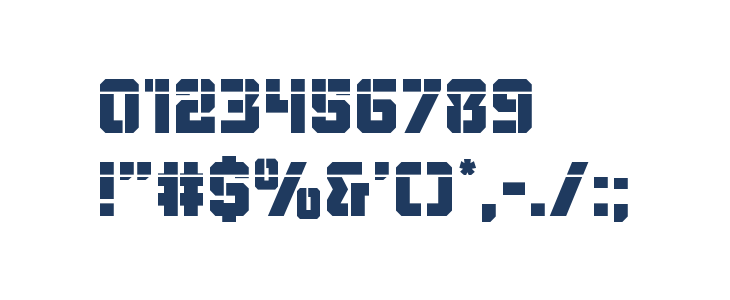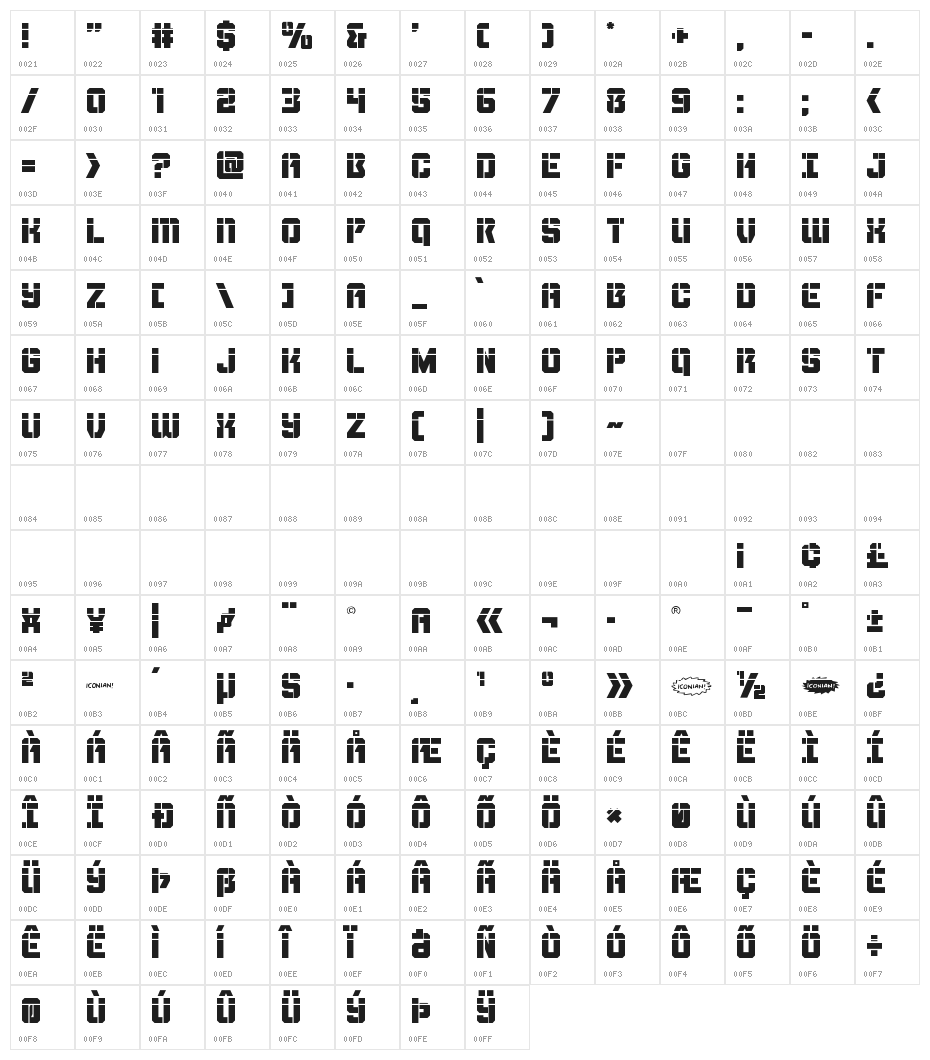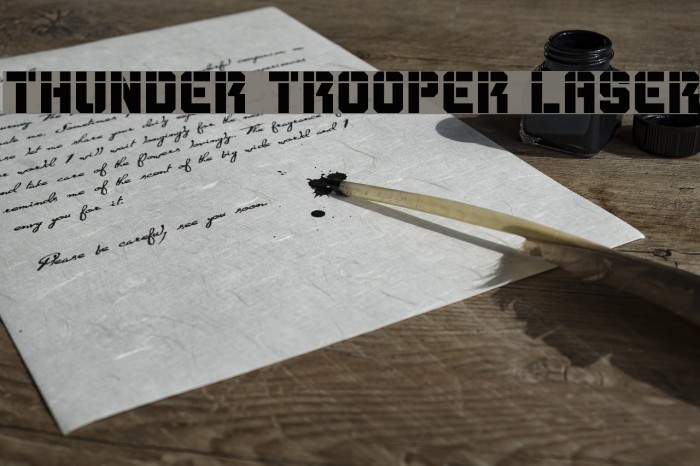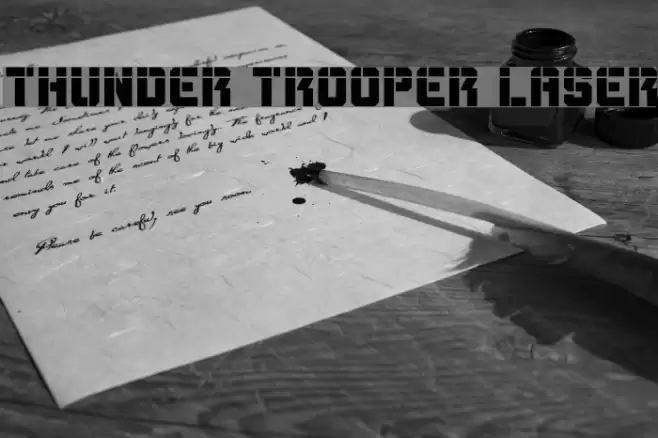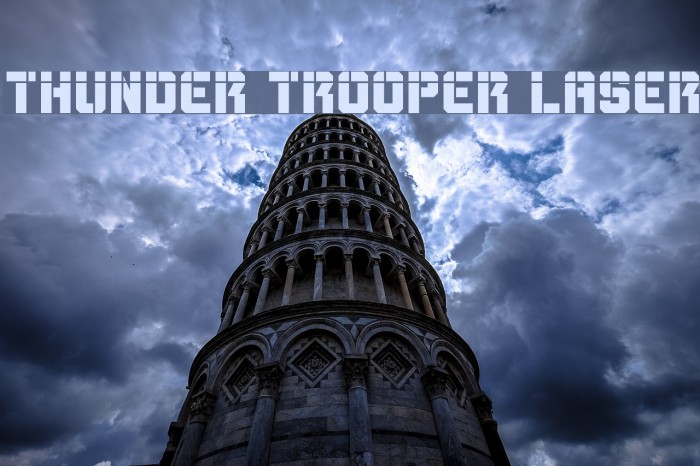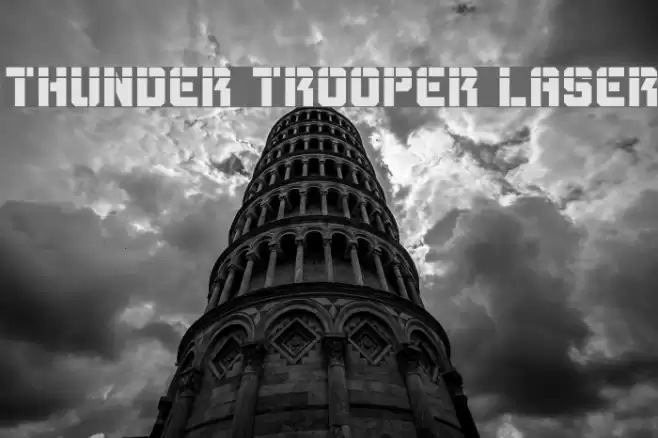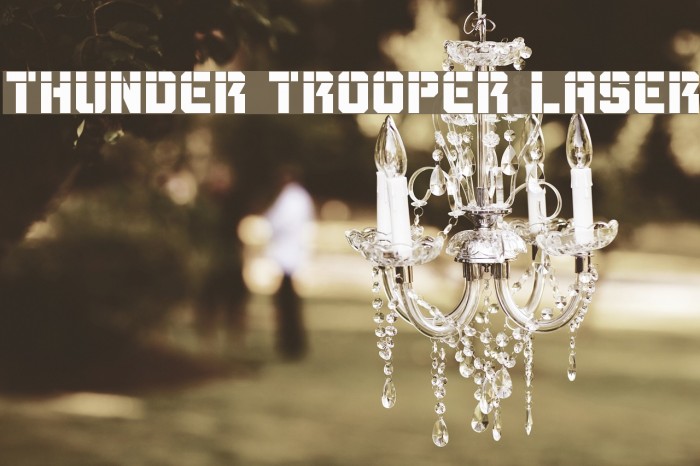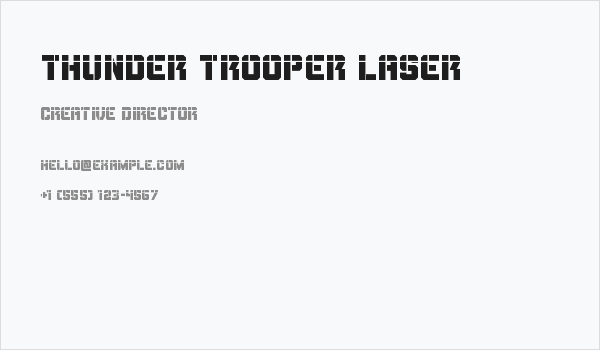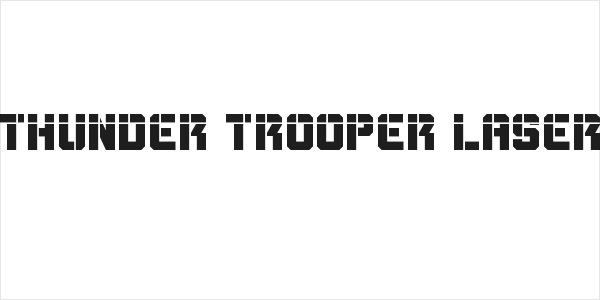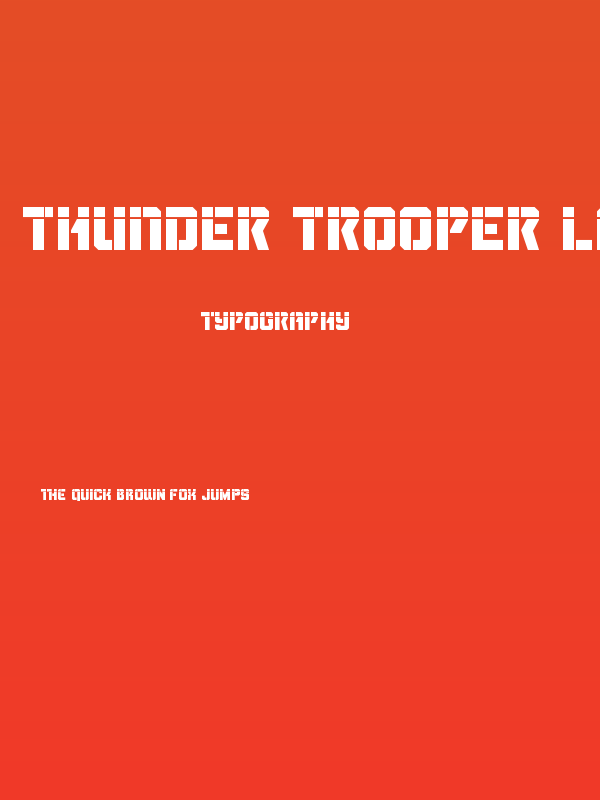
Thunder Trooper Laser Font
Thunder Trooper Laser Description
This font features a bold, futuristic design with a strong geometric structure. The characters are constructed with sharp angles and a blocky appearance, giving it a distinct, industrial feel. The uppercase letters are particularly striking, with a uniform height and width that enhances their boldness. The lowercase letters maintain the same angular style, ensuring consistency across the typeface. Numbers and special characters are designed to match the overall aesthetic, making them suitable for a variety of applications. The font's unique style makes it ideal for projects that require a modern, tech-inspired look.
| Proposed Projects | Ideal for sci-fi themed projects, video game titles, tech branding, and futuristic posters. |